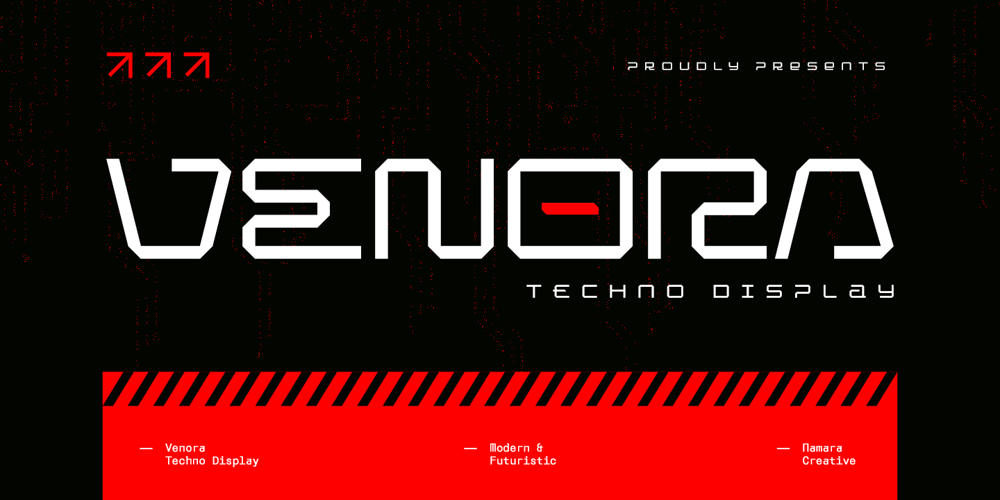
Venora Font Family was designed by Toni Setiawan and published by Namara Creative Studio. Venora contains 1 styles and family package options. A modern typeface with clean lines and sharp angles gives it a techno-futuristic look. Versatile and stylish choice for any design project that requires a high-tech edge. Ideal for use in digital design and printable materials such as Web Header, Logo, Business Card and Poster.Features : Techno Cutting Edge with Futuristic Tech Looks. Alternates, Ligatures & Multilingual Support PUA Encoded | no special software needed to access extra characters. Note :To be able to access ligatures and the alternate letters, please make sure the software you are using can support opentype features.